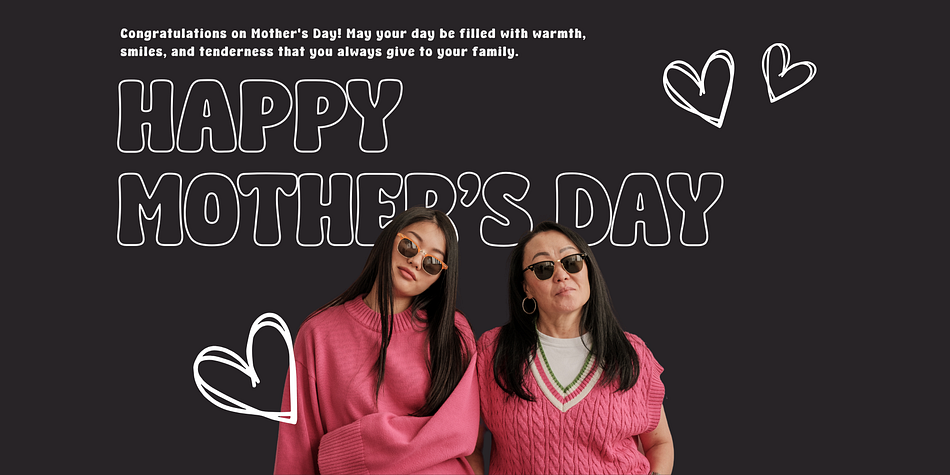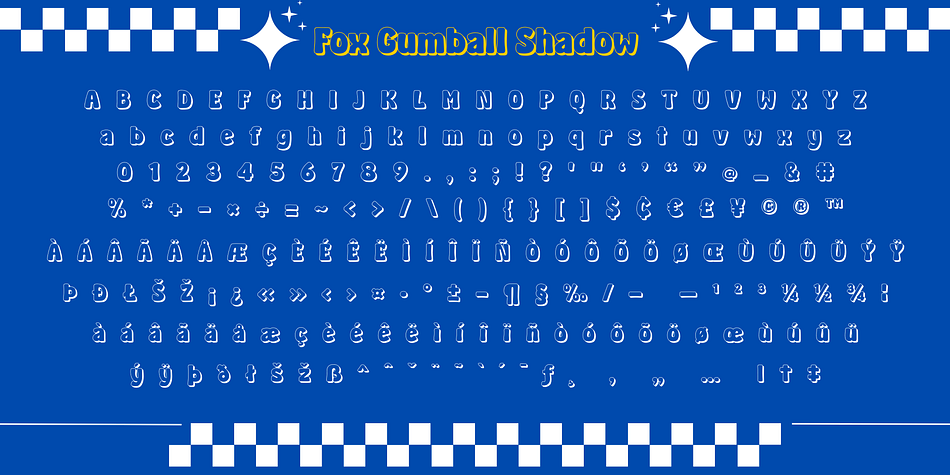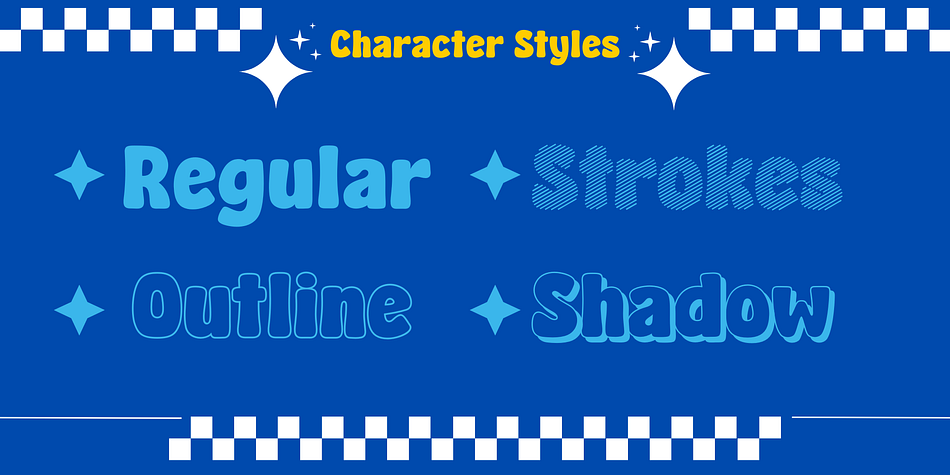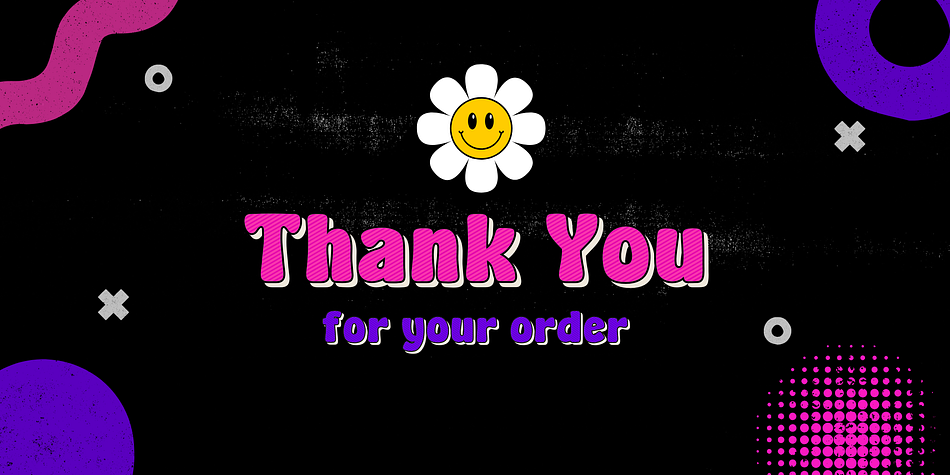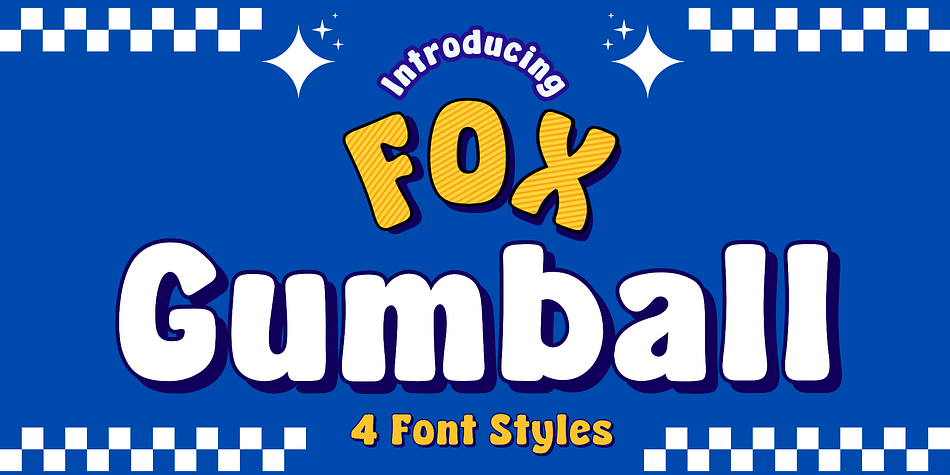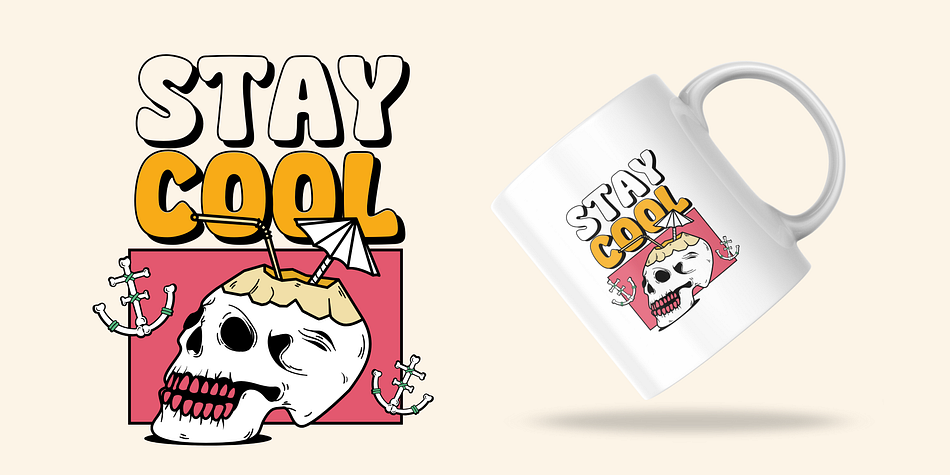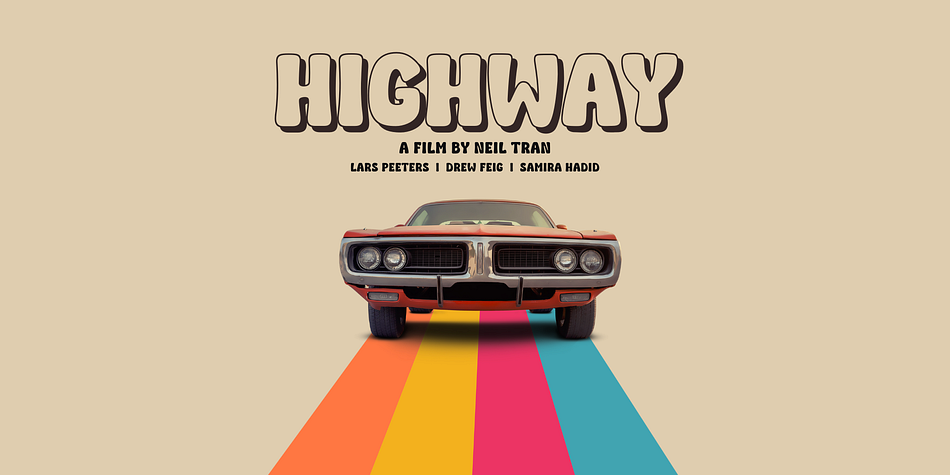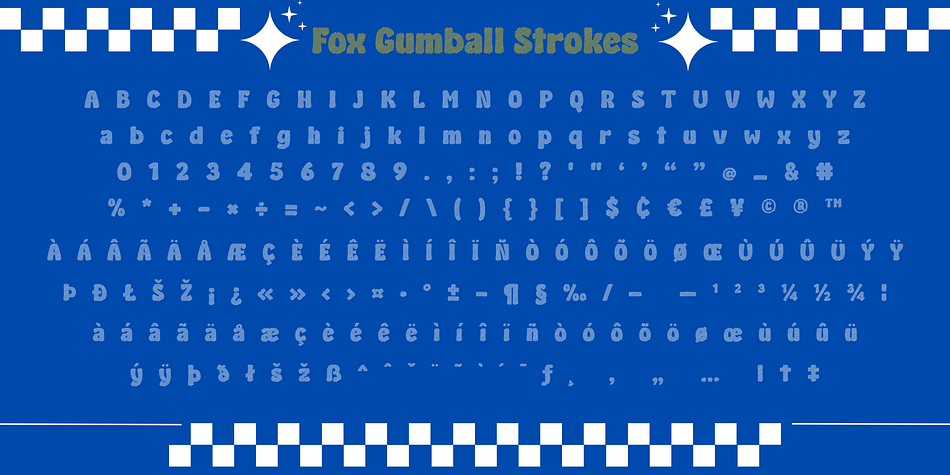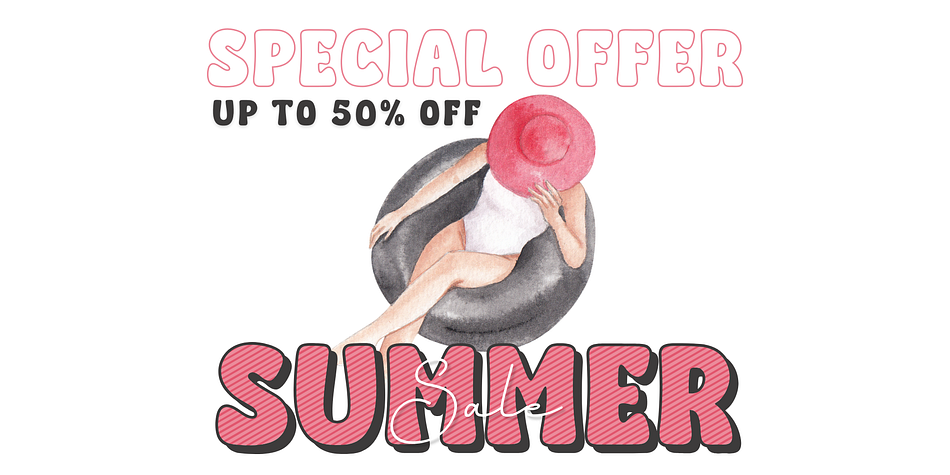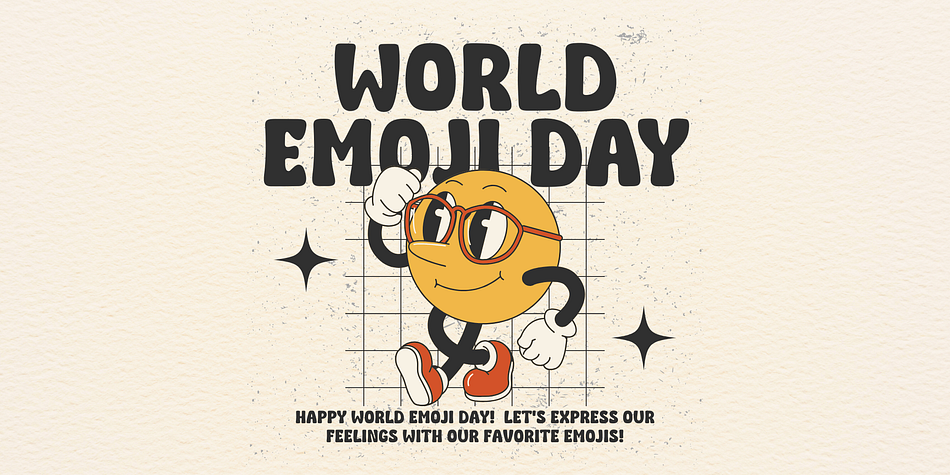
Fox Gumball
Designed by Rattana Rattanawan, Fox Gumball is a retro font family. This typeface has four styles and was published by Fox7.
Fox Gumball – Playful Font Family with 4 Fun Styles
Get ready to add some bounce to your designs with Fox Gumball – a bubbly and bold display font family inspired by retro cartoons, candy shops, and vintage fun! With smooth curves and chunky forms, this font brings cheerful energy to any project.
Fox Gumball comes in 4 delightful styles to mix and match:
❀ Regular – soft, rounded, and full of charm
❀ Outline – perfect for layering or giving a hollow candy look
❀ Shadow – adds depth and playful dimension
❀ Strokes – striped and fun for extra retro flair
Whether you’re designing kids’ packaging, logos, posters, or playful branding, Fox Gumball brings a pop of personality and nostalgic sweetness every time.
Designer Rattana Rattanawan